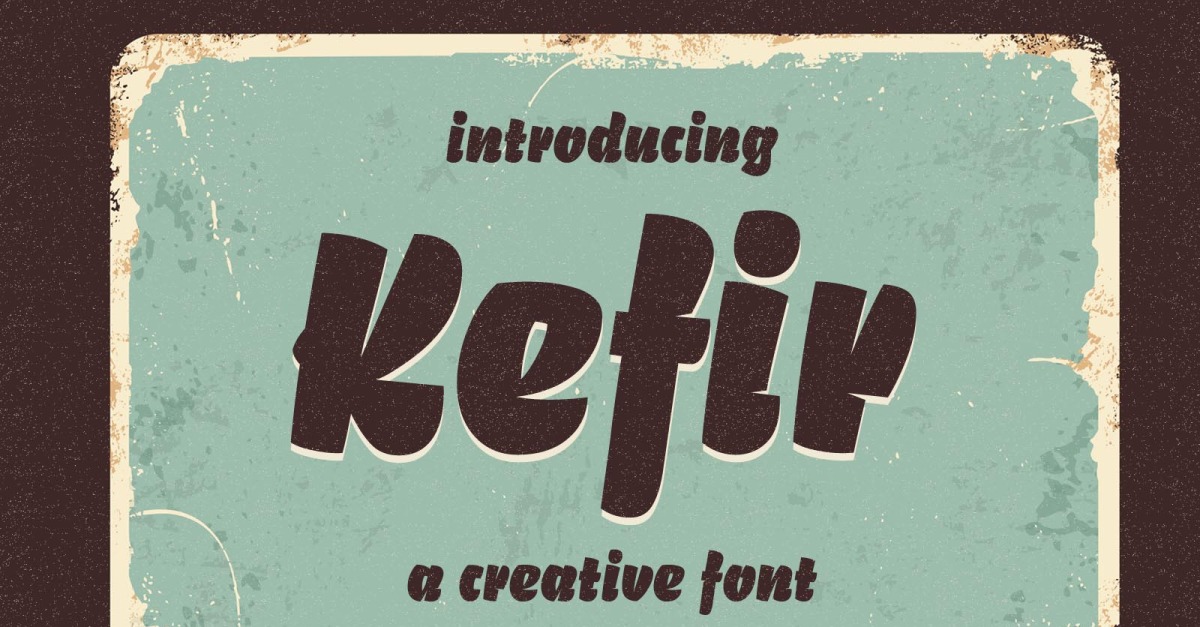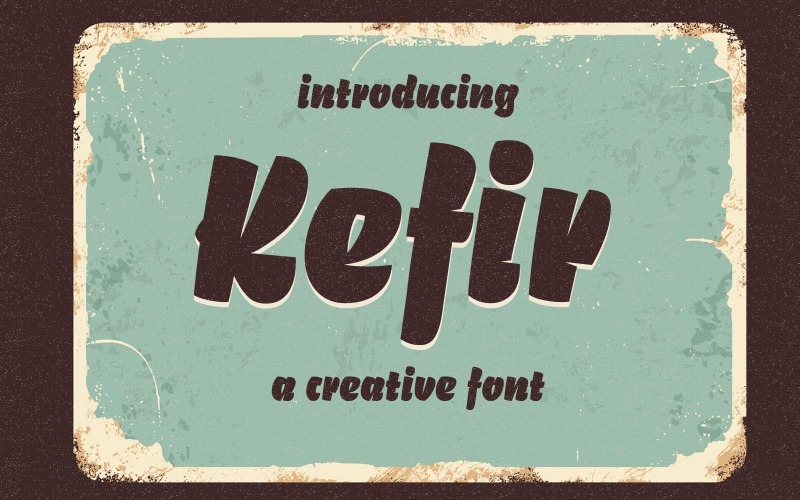
Kefir Font
We are introducing our new font. So beautiful on invitation like greeting cards, branding materials, business cards, quotes, posters, and more!
· Tons of glyphs
· Alternates and Ligatures
· Punctional